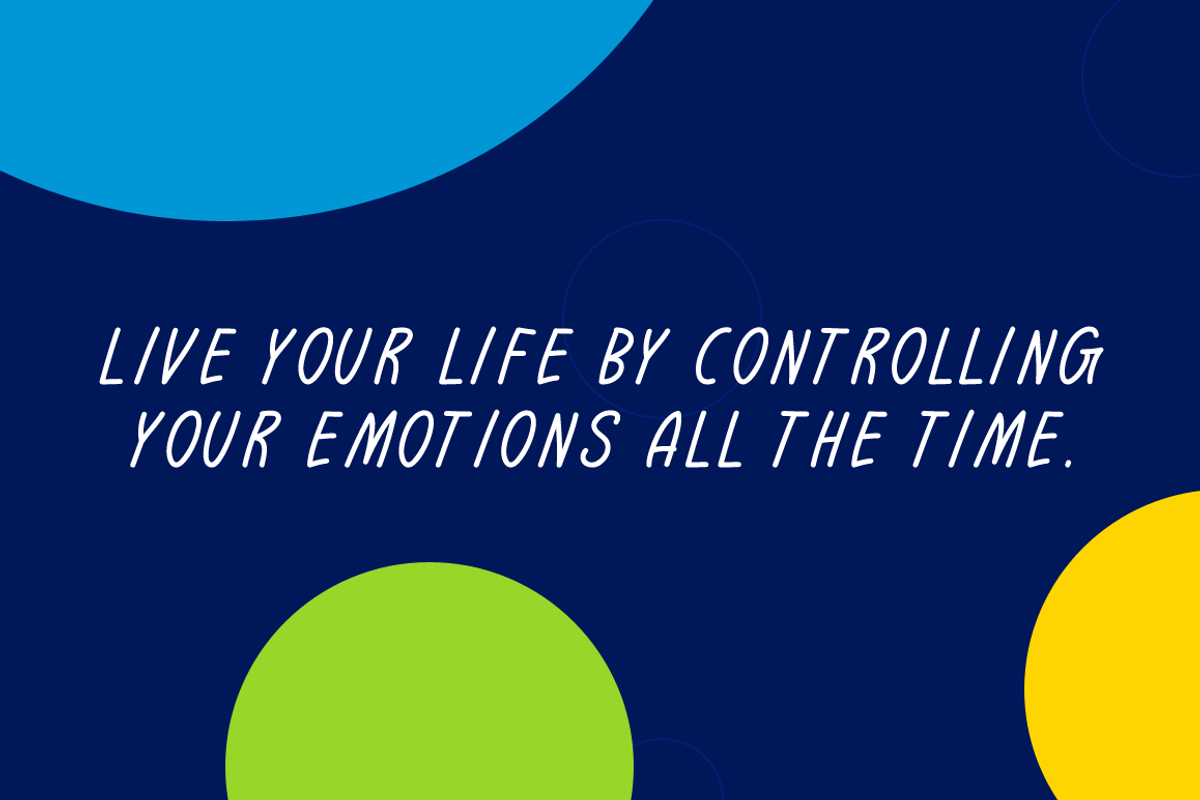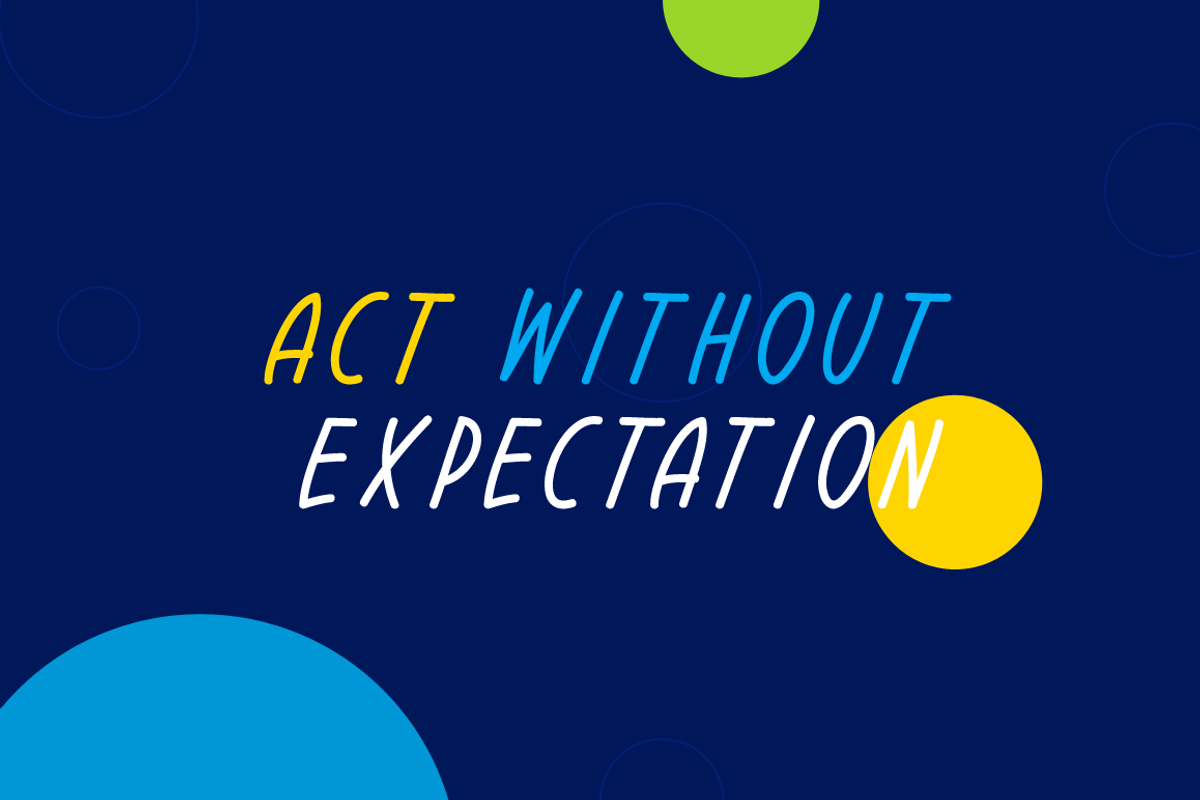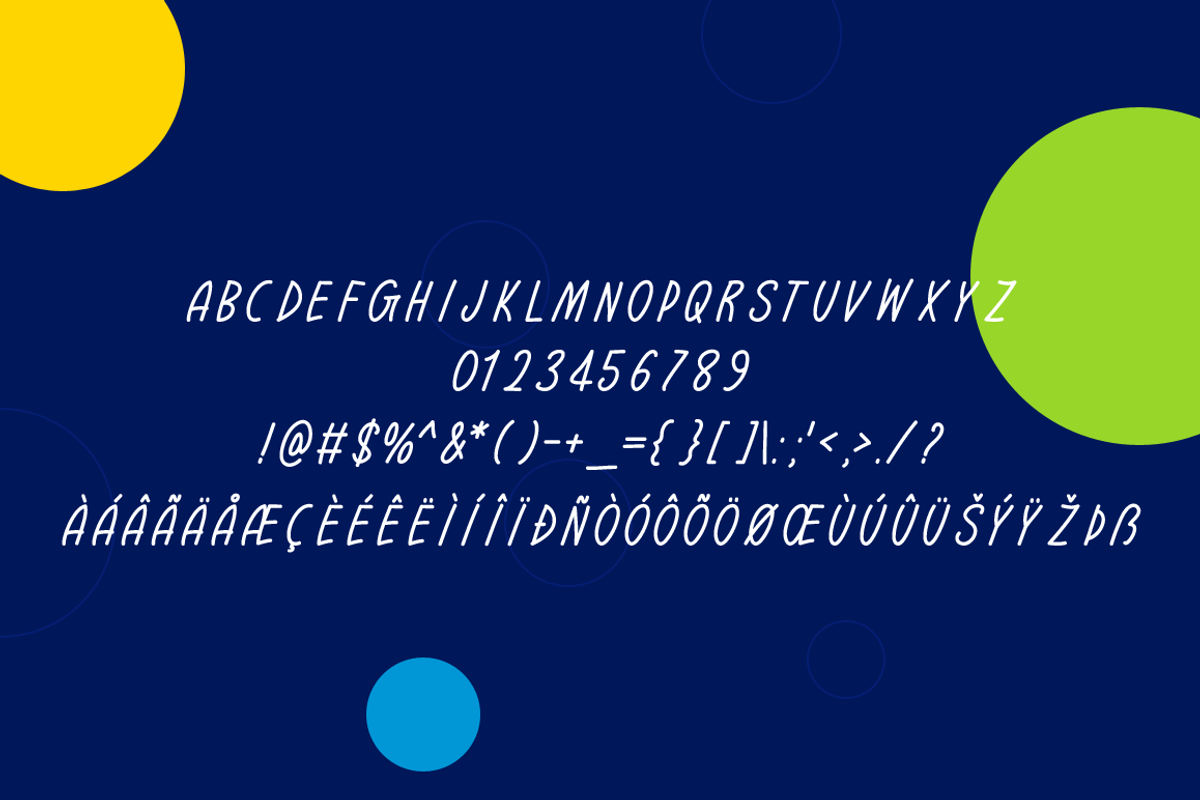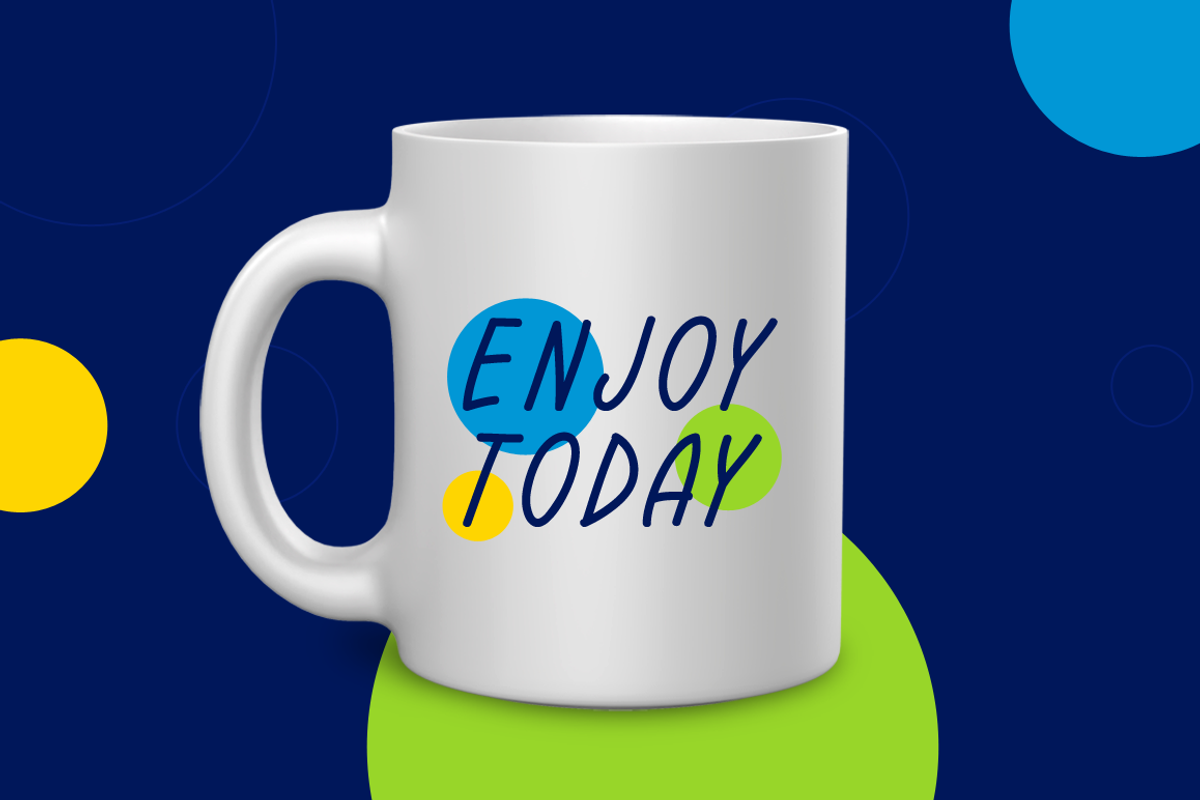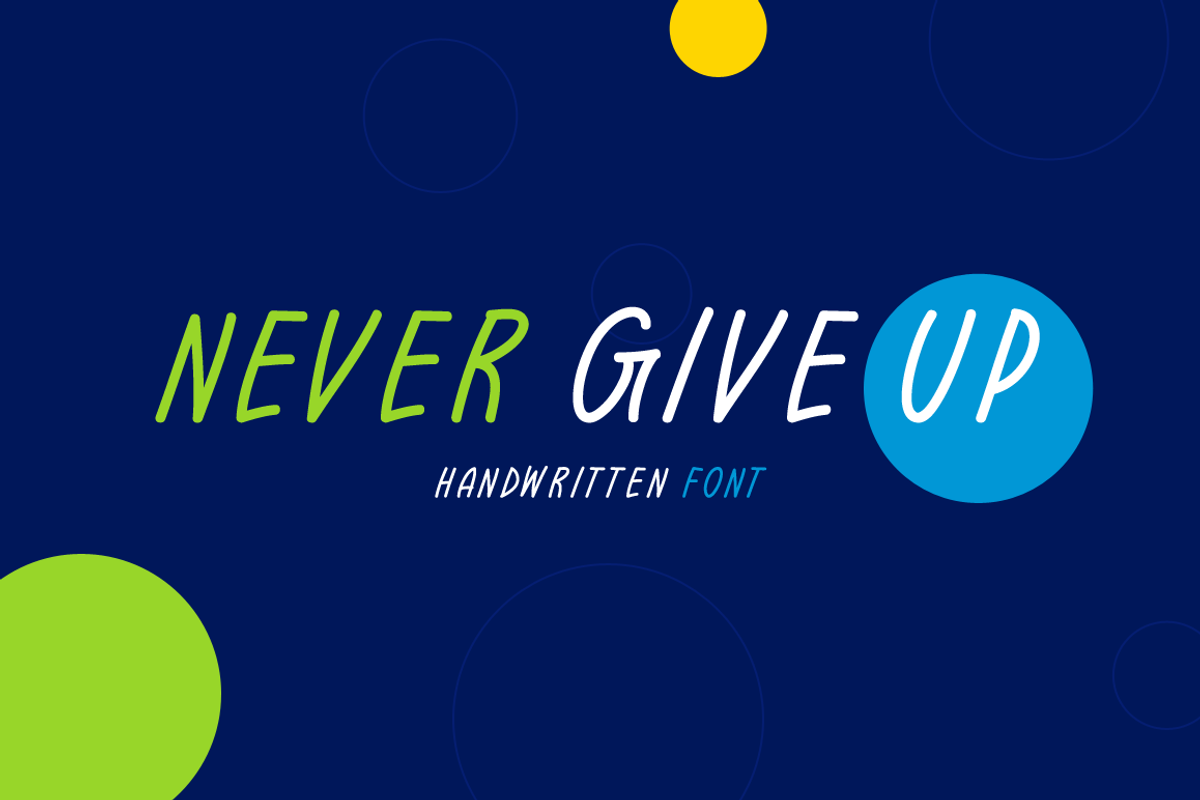
Never Give Up Typeface
Introducing Never Give Up!
Never Give Up is a simple and friendly handwritten font, featuring the perfect amount of trendiness. This original look will appeal to a wide range of crafty ideas, from letterheads and titles to stationery.
Includes a range of multilingual support